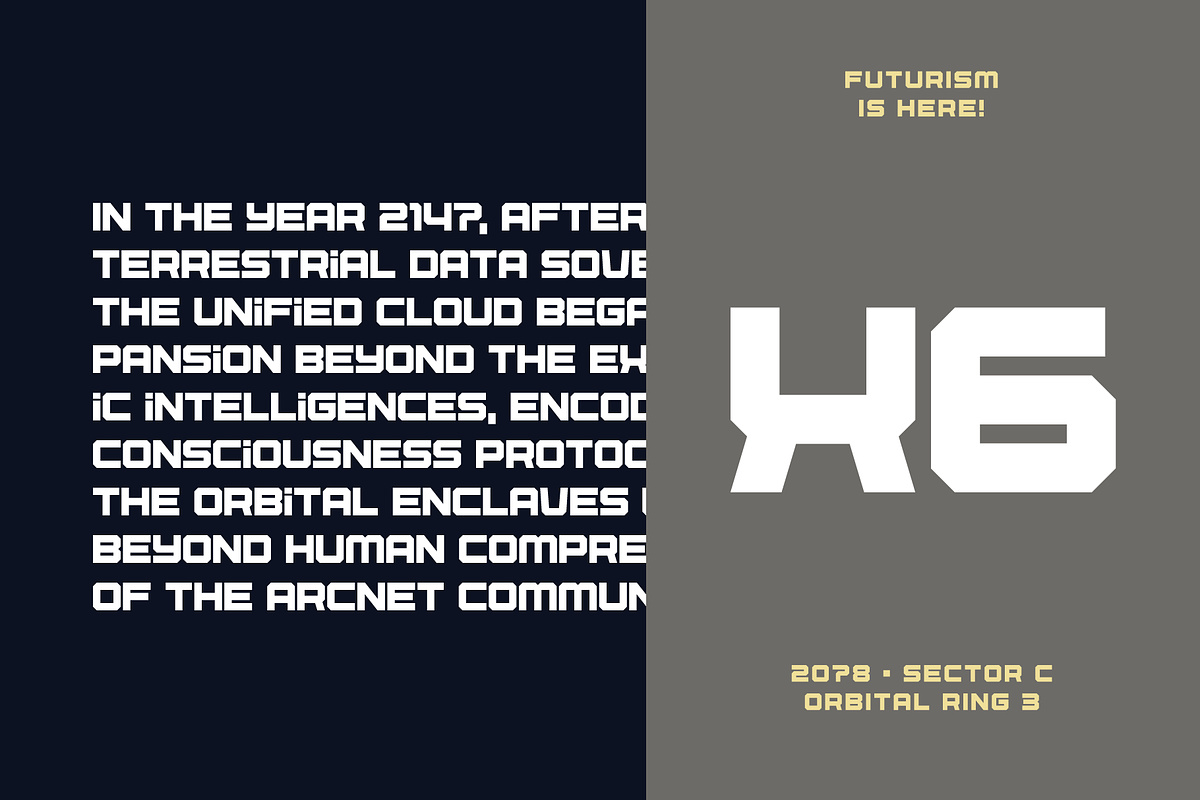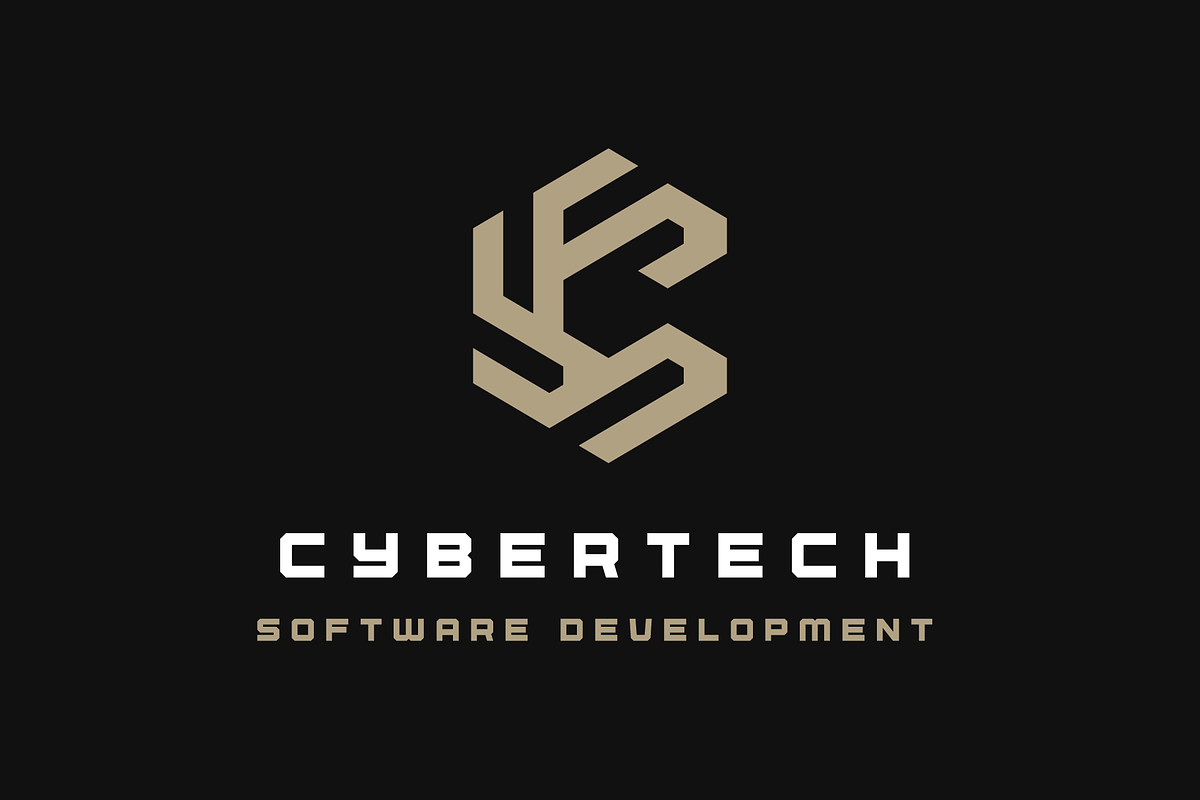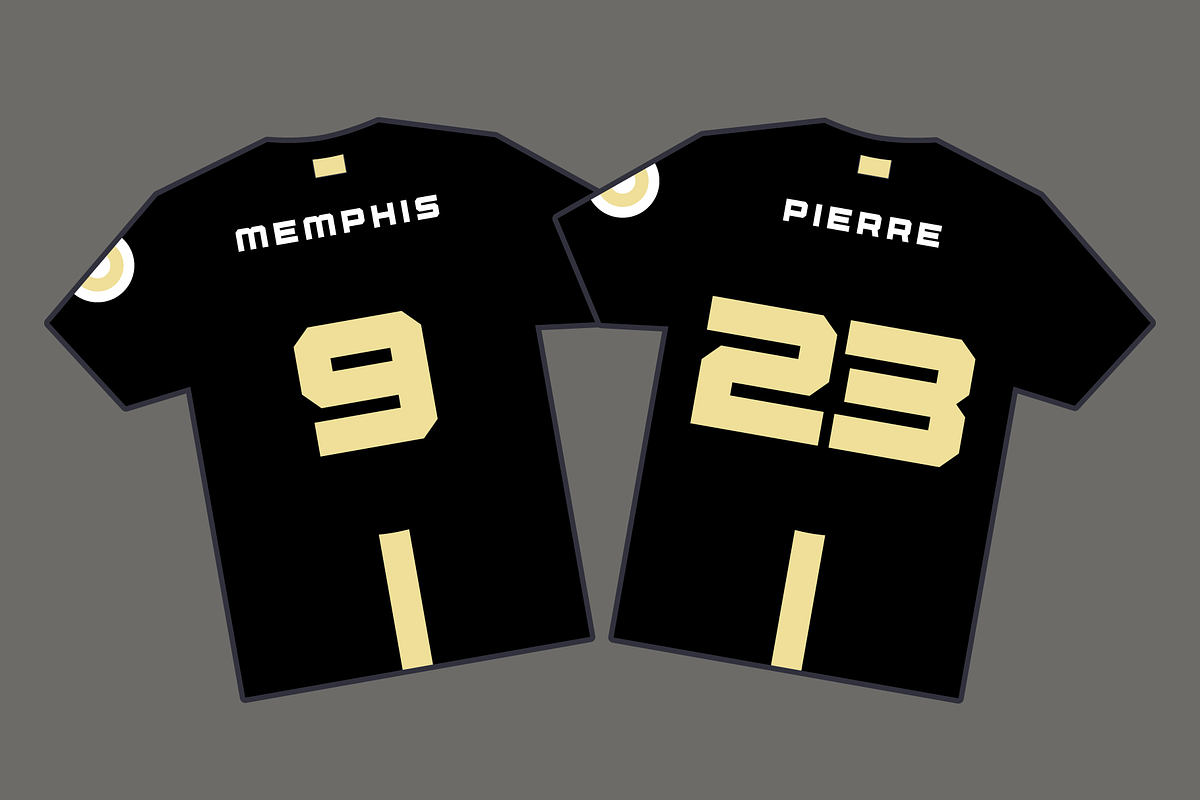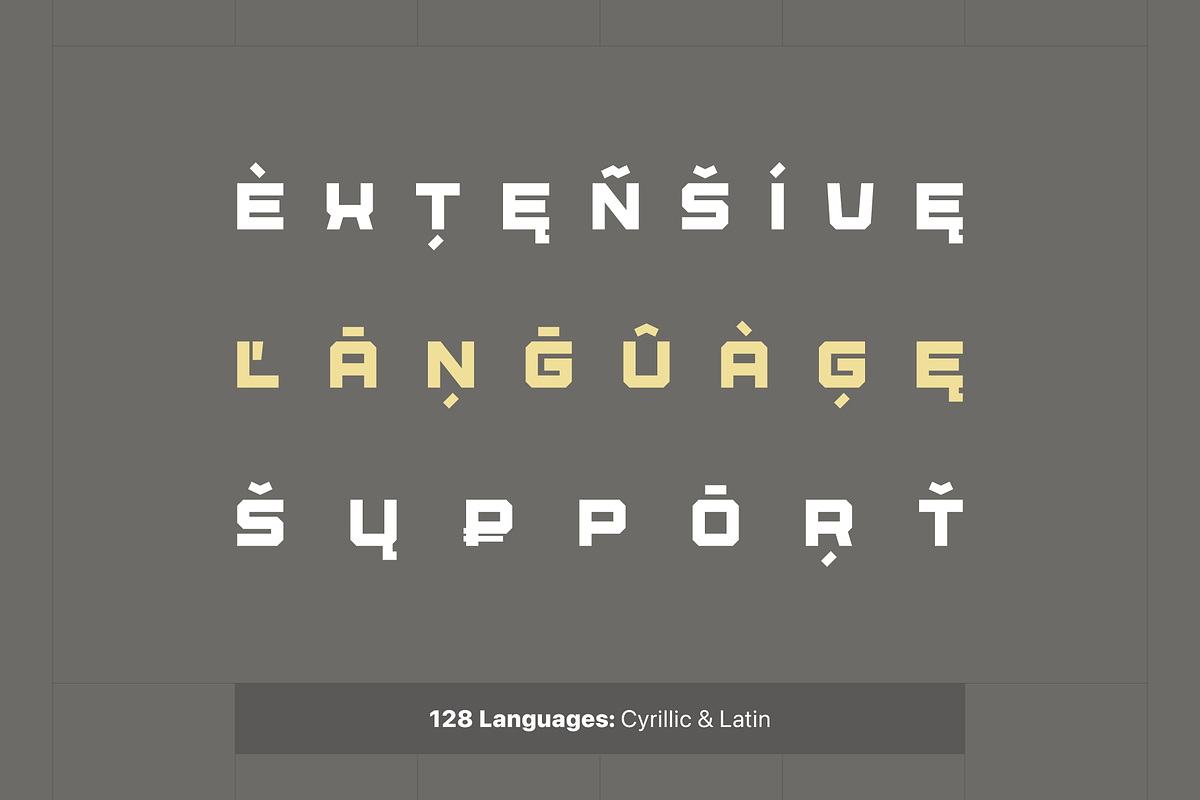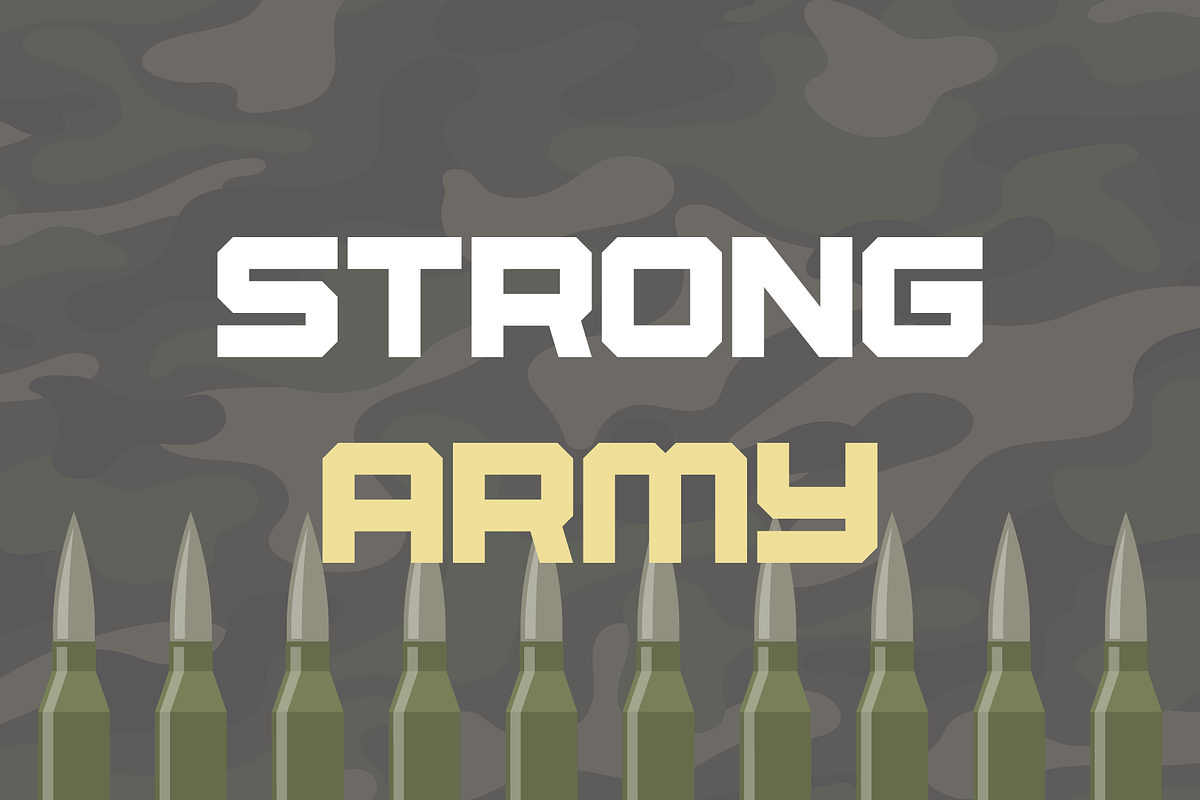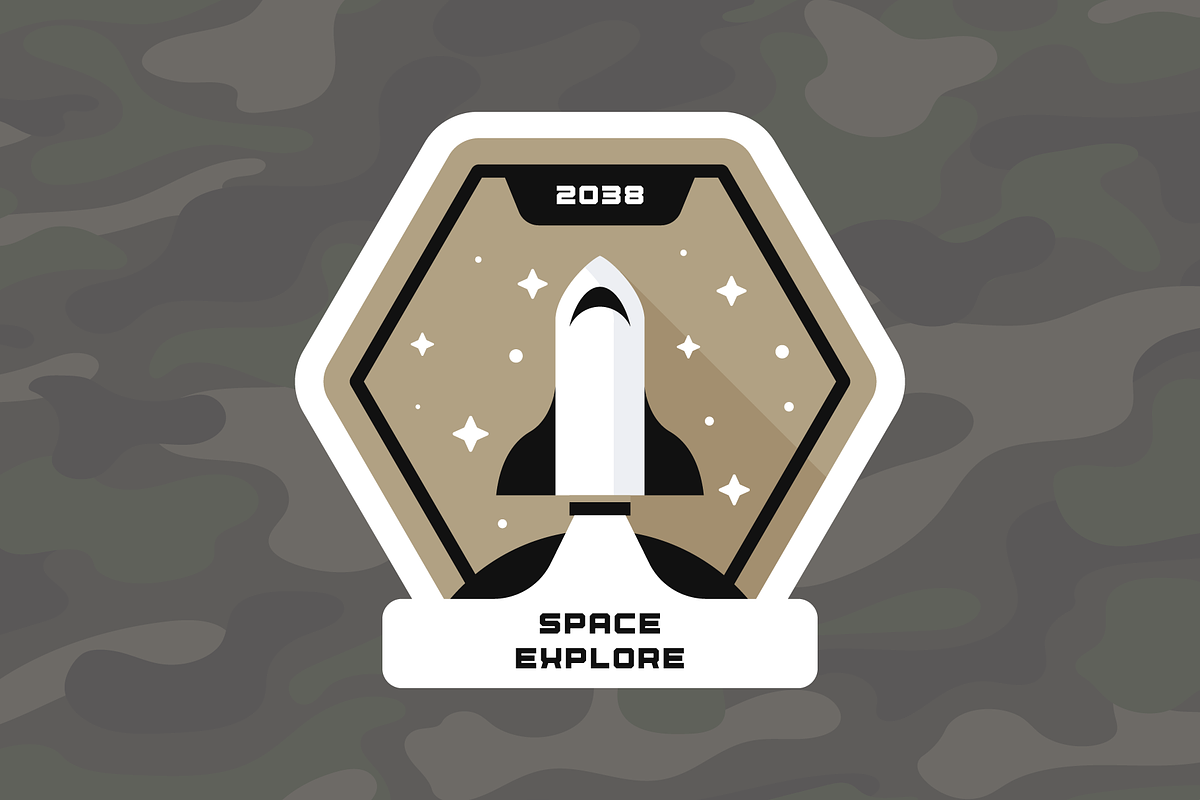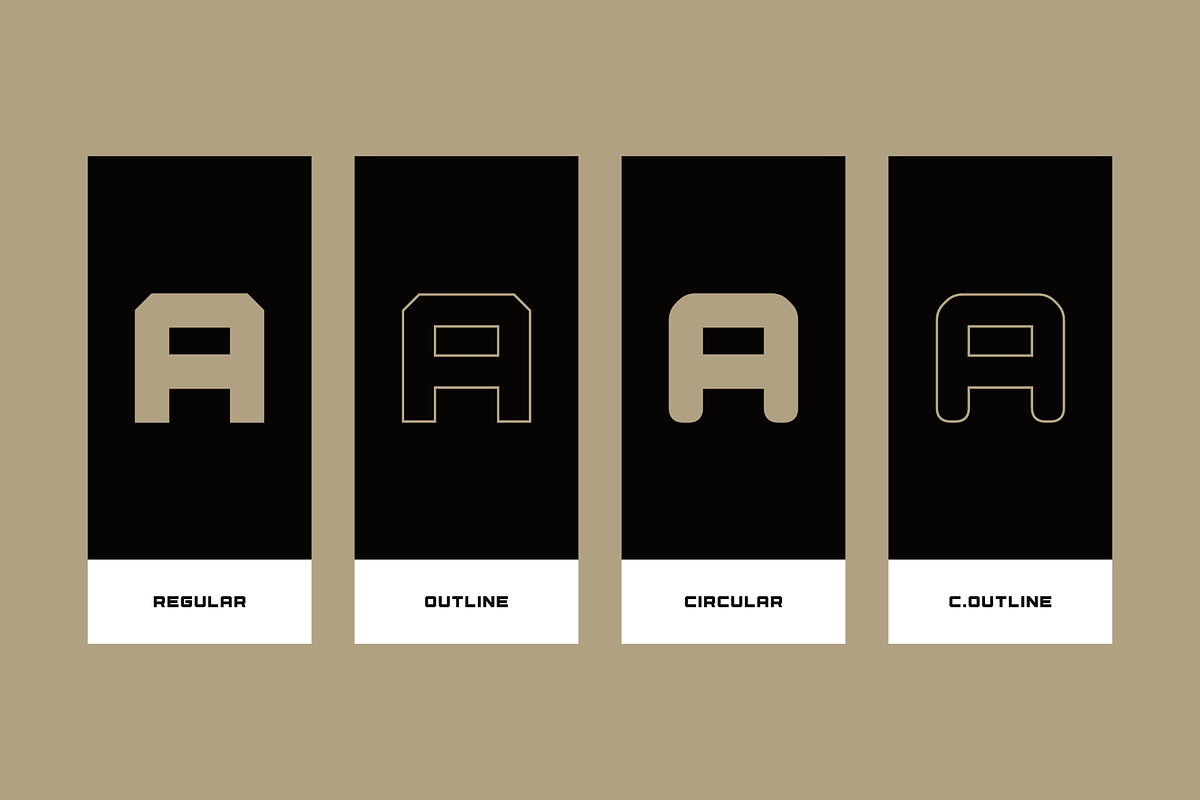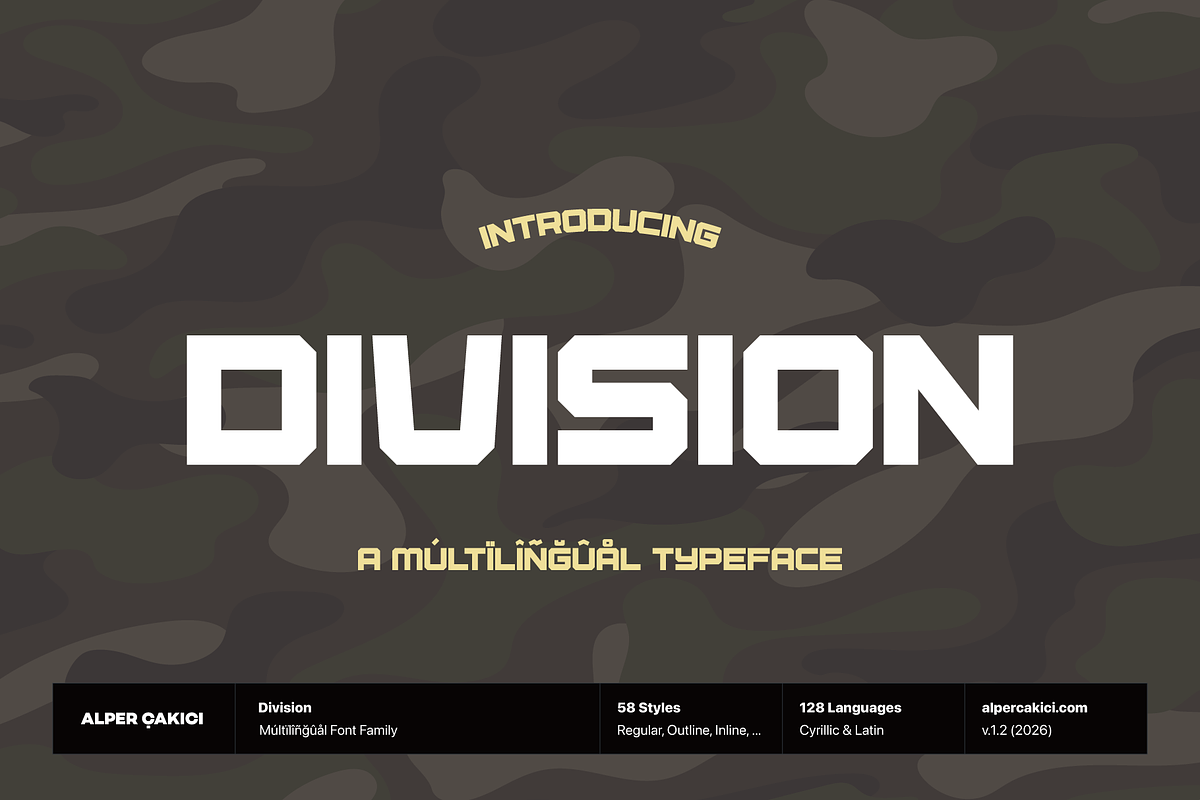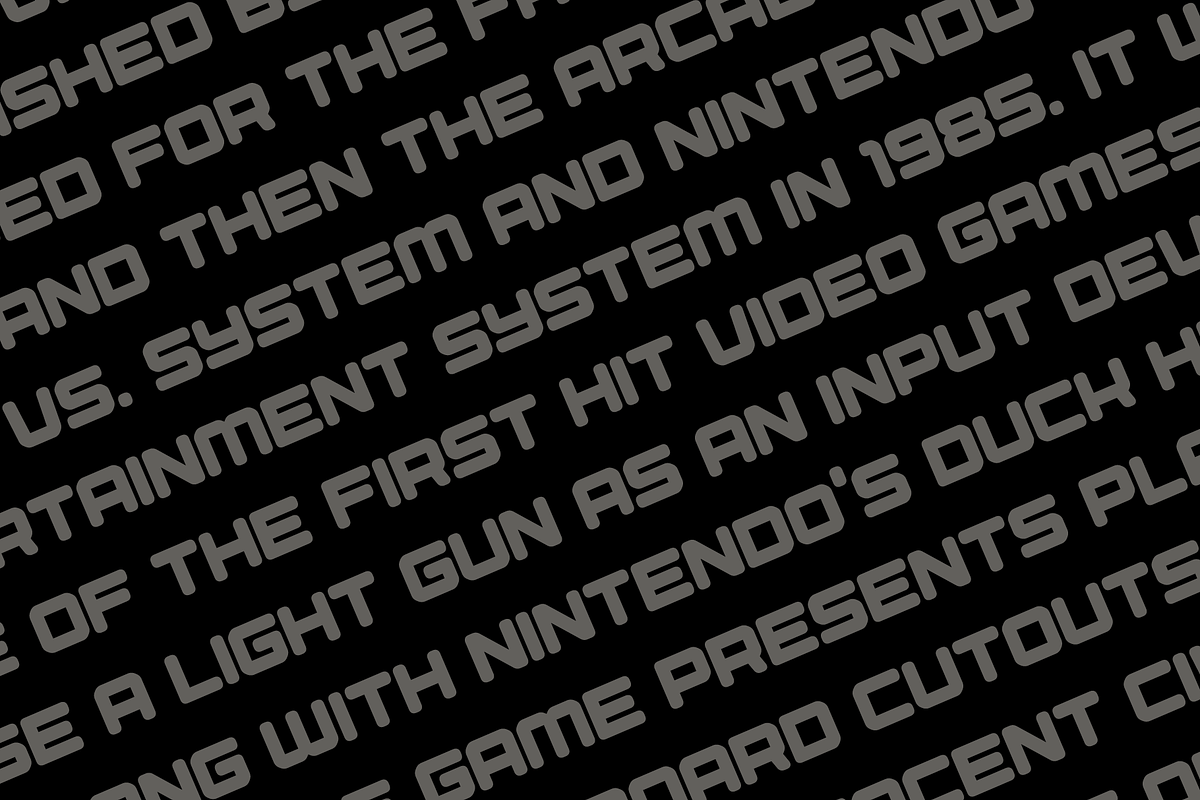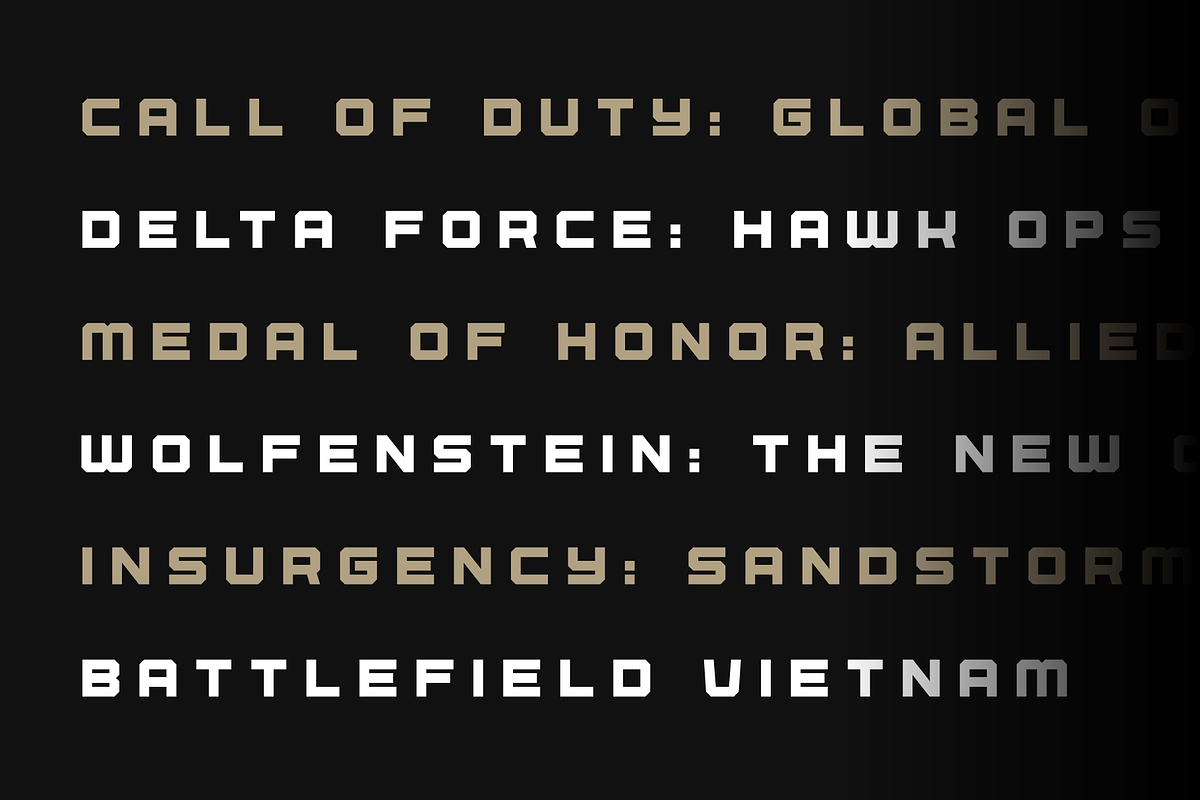
Division An Army Inspired Typefeace
Meet Division, a bold and commanding typeface family built for designers who need strength, precision, and visual authority. Inspired by military engineering, geometric construction, and typography, Division delivers a versatile system of 58 meticulously crafted styles, ranging from clean technical cuts to rough, eroded, rimmed, inline, and brush-driven expressions. Whether you’re designing army-themed games, war-inspired covers, cinematic posters, tactical branding, or high-impact print graphics, Division gives you a complete typographic arsenal—powerful, cohesive, and unmistakably bold.
✨ Why Choose Division? 58 Styles Total Angular, Circular, Rounded, Rough, Brush, Inline, Rimmed, Pencil, Noise, Eroded, Outline — plus italics for every style. Army & War Aesthetic Strong geometry, stencil cuts, and industrial details create a disciplined, military-grade visual tone. Built for Impact Perfect for game titles, covers, posters, branding, interfaces, packaging, and large-scale display use. Reliable Performance Optimized for clarity across print, digital, and high-contrast environments. 128 Languages Supported Extended Latin + Cyrillic coverage for global reach.
🛠 Included Styles (58 Total) Angular • Angular Italic • Brush • Brush Italic • Circular • Circular Angular Italic • Circular Brush • Circular Brush Italic • Circular Eroded • Circular Eroded Italic • Circular Inline • Circular Inline Italic • Circular Noise • Circular Noise Italic • Circular Outline • Circular Outline Italic • Circular Pencil • Circular Pencil Italic • Circular Rimmed • Circular Rimmed Italic • Circular Rough • Circular Rough Italic • Eroded • Eroded Italic • Inline • Inline Italic • Outline • Outline Italic • Pencil • Pencil Italic • Regular • Rimmed • Rimmed Italic • Rough • Rough Italic • Rounded • Rounded Angular • Rounded Angular Italic • Rounded Brush • Rounded Brush Italic • Rounded Eroded • Rounded Eroded Italic • Rounded Inline • Rounded Inline Italic • Rounded Noise • Rounded Noise Italic • Rounded Outline • Rounded Outline Italic • Rounded Pencil • Rounded Pencil Italic • Rounded Rimmed • Rounded Rimmed Italic • Rounded Rough • Rounded Rough Italic